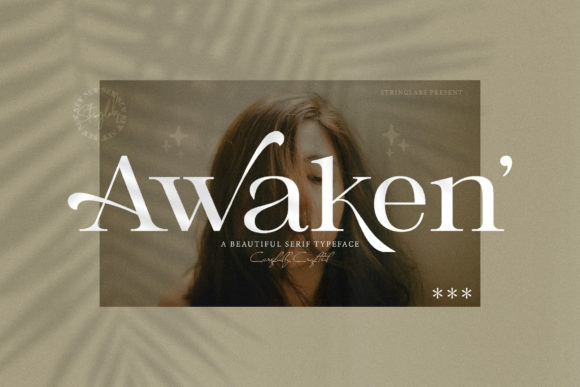
The Moment of Truth: When Fonts Can Make or Break Your Design
I still remember the time I was working on a project for a high-end fashion brand. I had spent hours perfecting the layout, selecting the perfect images, and crafting a compelling message. But as I was about to finalize the design, I realized that something was off. The font I had chosen just didn’t feel right. It was too bland, too generic, and it completely diluted the impact of the brand’s message. I knew I had to find a better font, and fast!
After hours of searching, I stumbled upon the Awaken Font. Its assertive yet distinct serif design immediately caught my attention. I was intrigued by its elegance and simplicity, and I couldn’t wait to see how it would work in my design. And, as I started using it, I knew I had found the perfect fit. The Awaken Font was the game-changer my design needed, and I’m excited to share its awesomeness with you!
What I Love About Awaken Font ✨
• ✅ Elegant and sophisticated design that’s perfect for formal and informal projects
• ✅ Simple yet distinct serif design that adds a touch of refinement to any layout
• ✅ Highly versatile and adaptable to various design styles and themes
• ✅ Works beautifully in both digital and print formats
• ⚠️ Some users might find the font a bit too assertive for very minimalist designs
• ⚠️ Limited availability of certain OpenType features in certain software
The Designer Inspiration Behind Awaken Font
The Awaken Font was designed with the goal of creating a elegant and sophisticated serif font that would add a touch of refinement to any design. Inspired by classic typography and modern design trends, the Awaken Font is the perfect blend of traditional and contemporary styles.
Q: What is the Awaken Font best suited for?
A: The Awaken Font is a versatile font that can be used for a wide range of design projects, from formal and informal documents to branding and advertising.
Q: Is the Awaken Font available in different weights and styles?
A: Yes, the Awaken Font comes in various weights and styles, making it easy to use for a range of design applications.